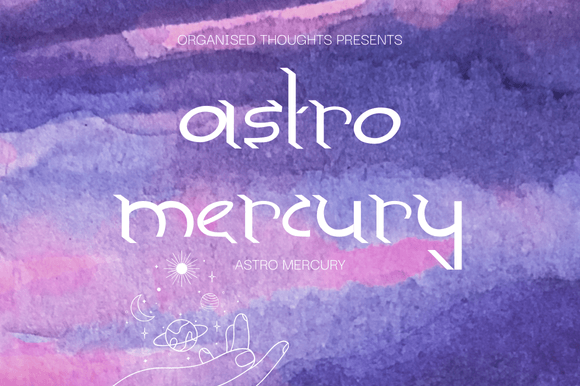
Introducing Astro Mercury: The Standout Font from Organised Thoughts
In the world of design, fonts play a crucial role in bringing creative visions to life. For those seeking a unique and captivating font that embodies the essence of astrology, look no further than Astro Mercury. Part of the Astrology Collection by Organised Thoughts, Astro Mercury is a game-changer for designers looking to infuse their projects with a blend of tradition and modernity.
The Unique Perspective of Astro Mercury
What sets Astro Mercury apart from other fonts is its unique development perspective. This font combines the ancient wisdom of Vedic astrology with the elegance of Sanskrit letters and the versatility of English alphabets. This fusion creates a comforting, old-world Indian feel that is reminiscent of ancient Sanskrit and astrological traditions.
Capturing the Essence of Astrology
Astro Mercury captures the essence of cool, trendy, and fantasy astrology concepts, making it the perfect choice for designers looking to create unique and captivating work. Whether used as a display font, for subheadings, or for titles, Astro Mercury excels in all roles. Its distinctive features and unparalleled versatility make it an ideal choice for a wide range of design projects.
A Font that Embodies Hope and Validation
At its core, Astro Mercury provides a sense of hope and validation, embodying the core of astrology. This font is not just a collection of letters and symbols; it’s a tool that can help designers tap into the mystical and spiritual aspects of astrology. With Astro Mercury, designers can create work that inspires and uplifts, bringing a sense of wonder and magic to their projects.
Ideal for Designers
Astro Mercury is ideal for designers looking to infuse their projects with a blend of tradition and modernity. Whether working on a branding project, creating a website, or designing a marketing campaign, Astro Mercury brings creative visions to life with its distinctive features and unparalleled versatility.
Key Features of Astro Mercury
- Unique blend of Vedic astrology and Sanskrit letters with English alphabets: Creates a comforting, old-world Indian feel that is reminiscent of ancient Sanskrit and astrological traditions.
- Cool, trendy, and fantasy astrology concepts: Makes Astro Mercury perfect for designers looking to create unique and captivating work.
- Distinctive features and unparalleled versatility: Excels in all roles, whether used as a display font, for subheadings, or for titles.
- Provides a sense of hope and validation: Embodies the core of astrology, making it a powerful tool for designers.
Tips for Using Astro Mercury
To get the most out of Astro Mercury, here are a few tips:
- Experiment with different sizes and styles: Astro Mercury excels in all roles, so don’t be afraid to try it out in different sizes and styles.
- Pair with complementary fonts: Pair Astro Mercury with complementary fonts to create a unique and captivating visual identity.
- Use in astrology-themed projects: Astro Mercury is perfect for astrology-themed projects, but don’t be afraid to use it in other creative projects as well.
In conclusion, Astro Mercury is a standout font from the Astrology Collection by Organised Thoughts. With its unique blend of Vedic astrology and Sanskrit letters with English alphabets, Astro Mercury captures the essence of cool, trendy, and fantasy astrology concepts. Its distinctive features and unparalleled versatility make it an ideal choice for designers looking to infuse their projects with a blend of tradition and modernity. Whether used as a display font, for subheadings, or for titles, Astro Mercury excels in all roles, bringing creative visions to life with its captivating and unique style.